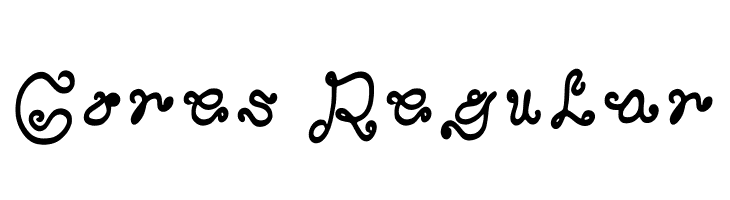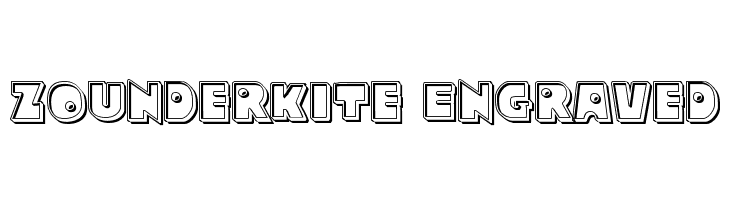
A bold, engraved font with a three-dimensional, playful style.
A playful, hand-drawn font with bold, irregular strokes and a whimsical style.
A bold, extended, and italic font with high contrast and elegant style.
A decorative icon font with feminine and playful motifs.
A bold, beveled, italic font with a three-dimensional look.
A playful, casual handwritten font with smooth, flowing curves.
A decorative and whimsical font with intricate swirls and loops.
A bold, 3D italic font with rounded edges and a futuristic style.
An elegant script font with ornate flourishes and a modern calligraphic style.
Primitive, hand-drawn glyphs reminiscent of ancient rock art.